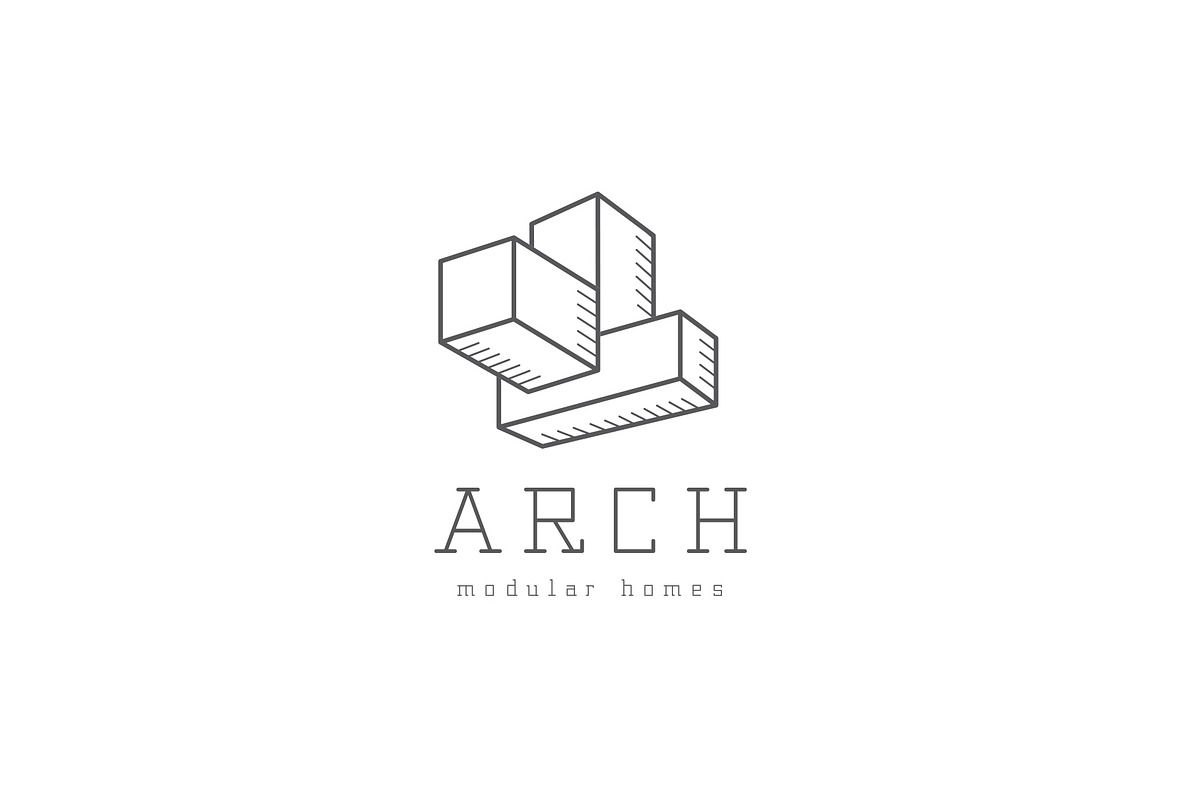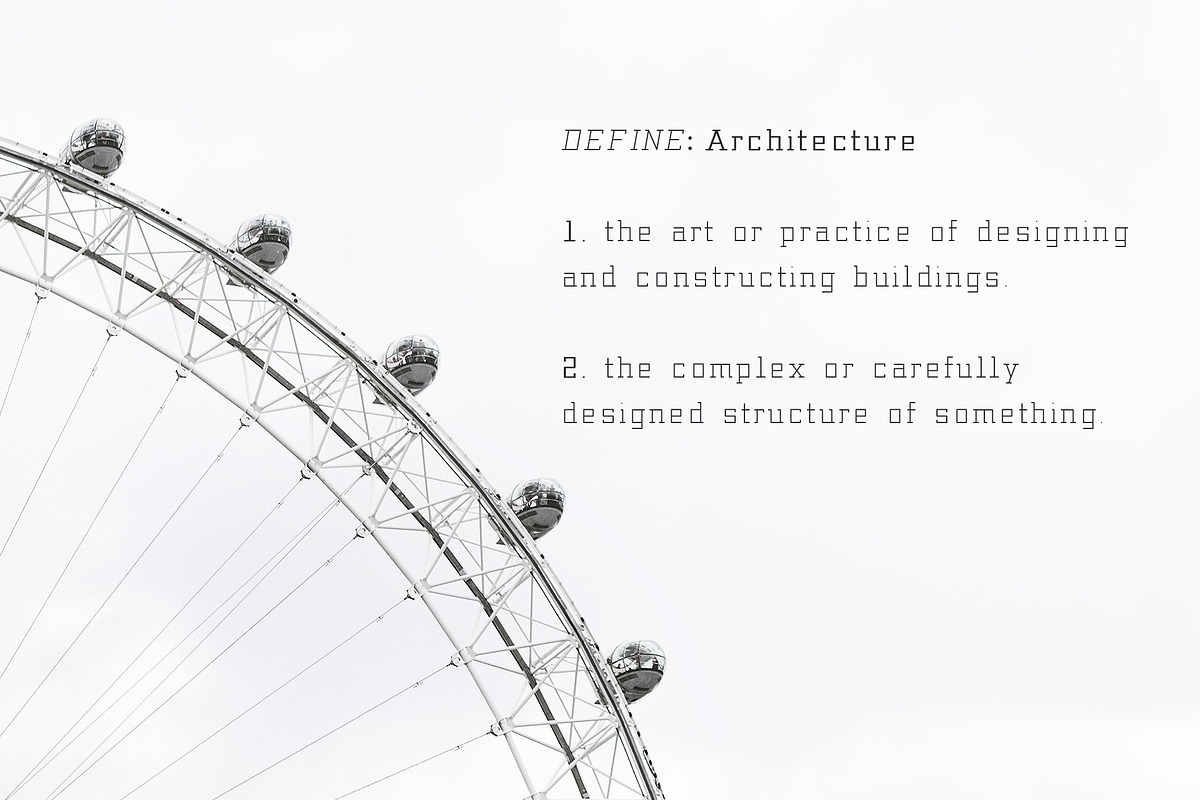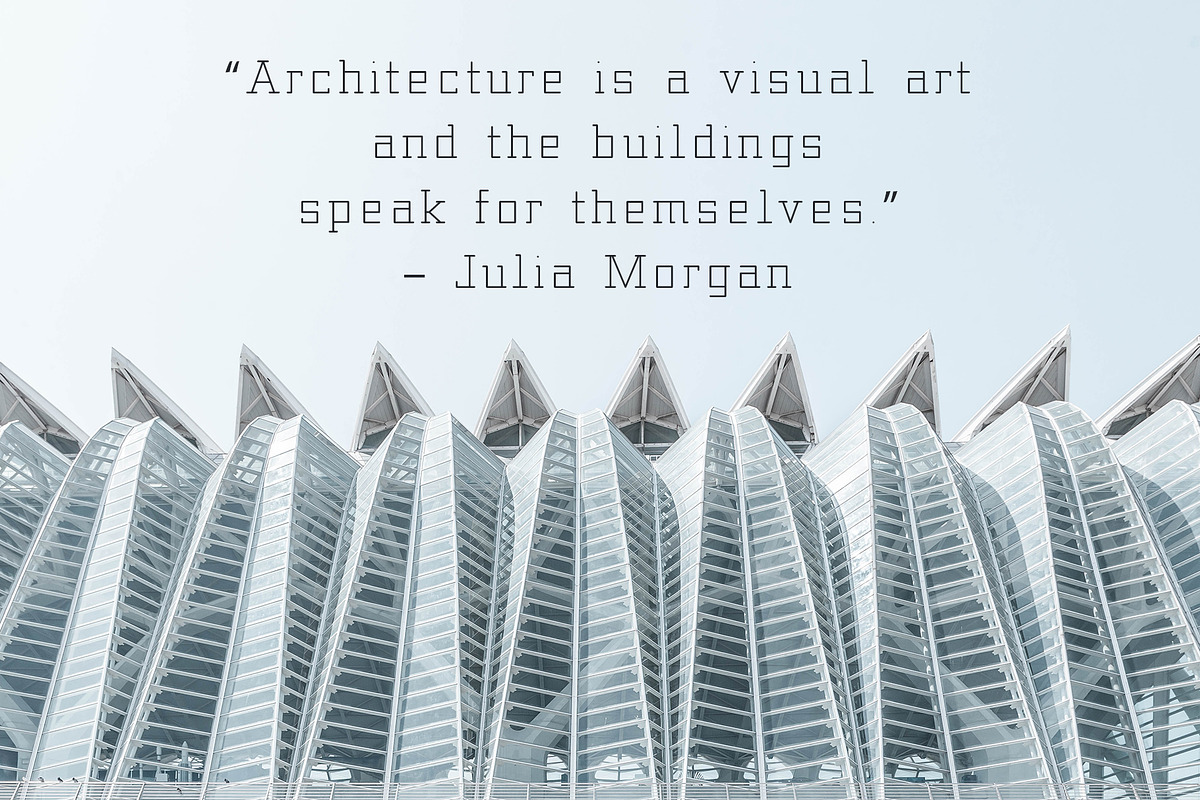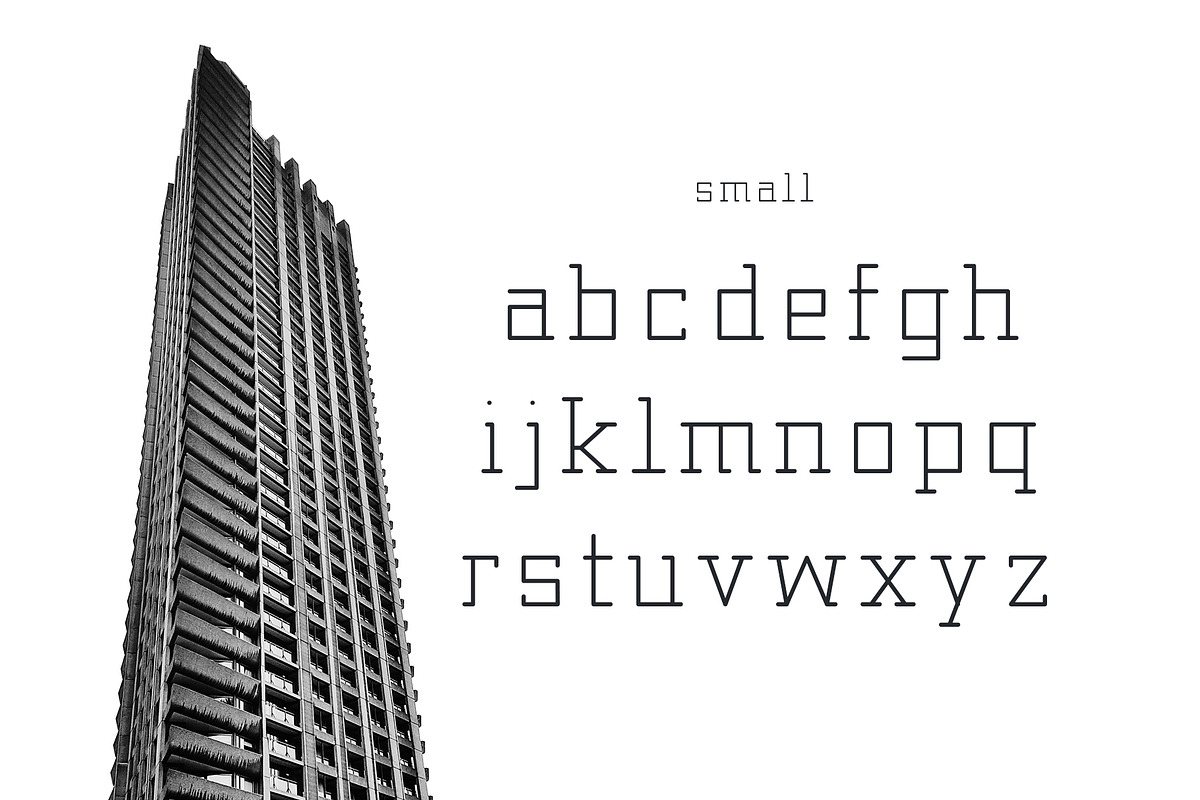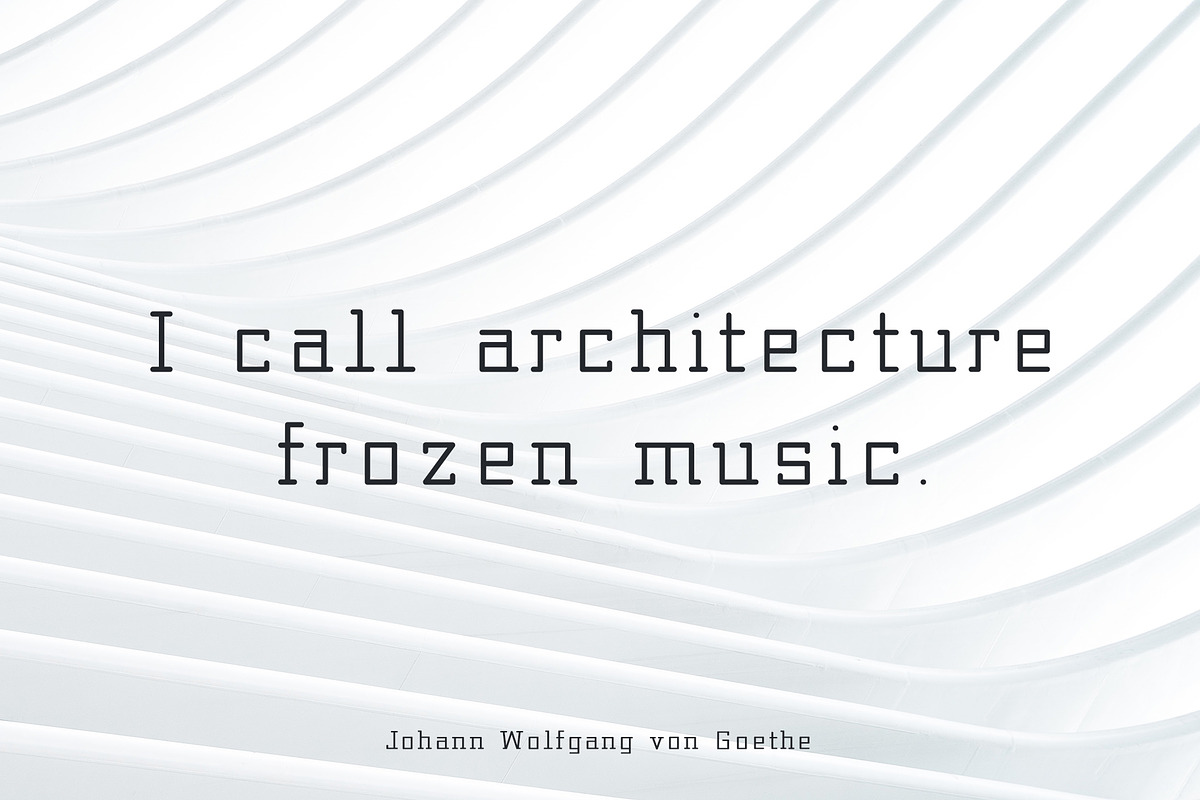
Architect - Geometrical Typeface
Architect - Geometrical Typeface by HipFonts is a font selected for branding, posters, packaging, typography.
Why Architect - Geometrical Typeface is worth a look
Architect - Geometrical Typeface by HipFonts fits naturally into Branding, posters, packaging, typography.